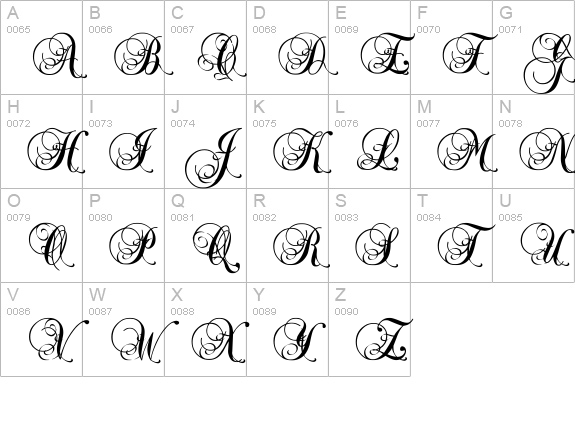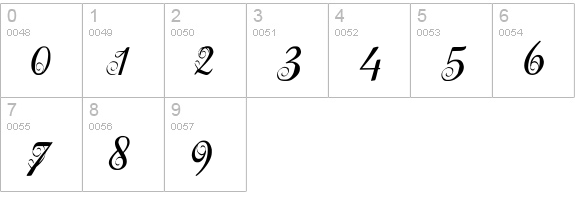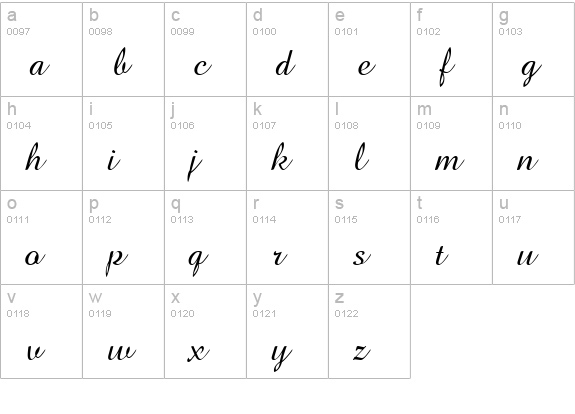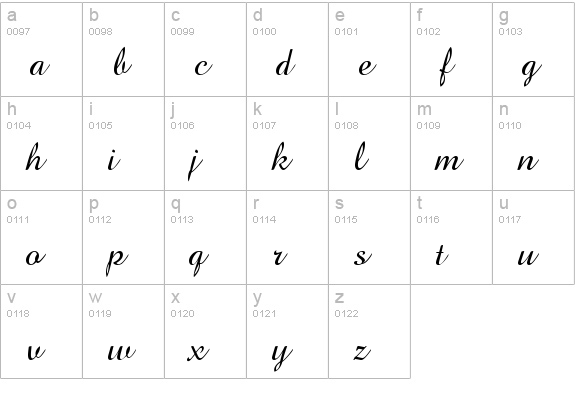
Precious Font Details
Introducing Precious font, a breathtakingly beautiful typeface that embodies elegance and sophistication. With its meticulously crafted letterforms and delicate strokes, Precious font is sure to captivate and inspire. This font exudes a sense of timelessness, effortlessly blending modern aesthetics with classic charm. Its graceful curves and refined details make it the perfect choice for any project that demands a touch of refinement and refinement. But what sets Precious font apart is not just its stunning design, but also the fact that it is freely available to download. That's right, you can experience the sheer beauty of this font without having to spend a dime. Thanks to FontsMarket.com, you can easily access and download Precious font for all your creative endeavors. Whether you're designing elegant invitations, crafting exquisite logos, or creating captivating branding materials, Precious font will elevate your work to new heights. Its versatility allows it to effortlessly adapt to any design concept, making it a valuable asset for designers, artists, and creatives of all kinds. With its wide range of weights and styles, Precious font offers endless possibilities for customization. Choose from a variety of options to find the perfect fit for your project, and let this font be the crowning jewel in your design arsenal. So why wait? Discover the beauty and versatility of Precious font today. Head over to FontsMarket.com and download this exquisite typeface for free. Unleash your creativity and let Precious font inspire your next masterpiece.